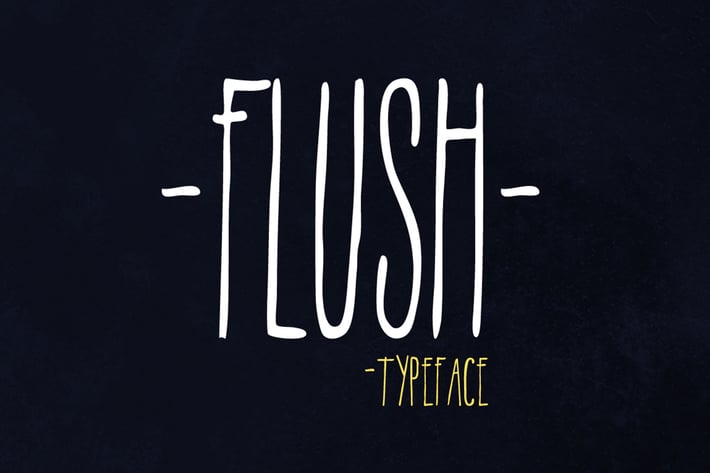
Flush Font
Flush Font is a handdrawing font inspired by ink and handwriting, this style is great for poster, t-shirt, logo type, and many more. Both version on TTF and OTF version